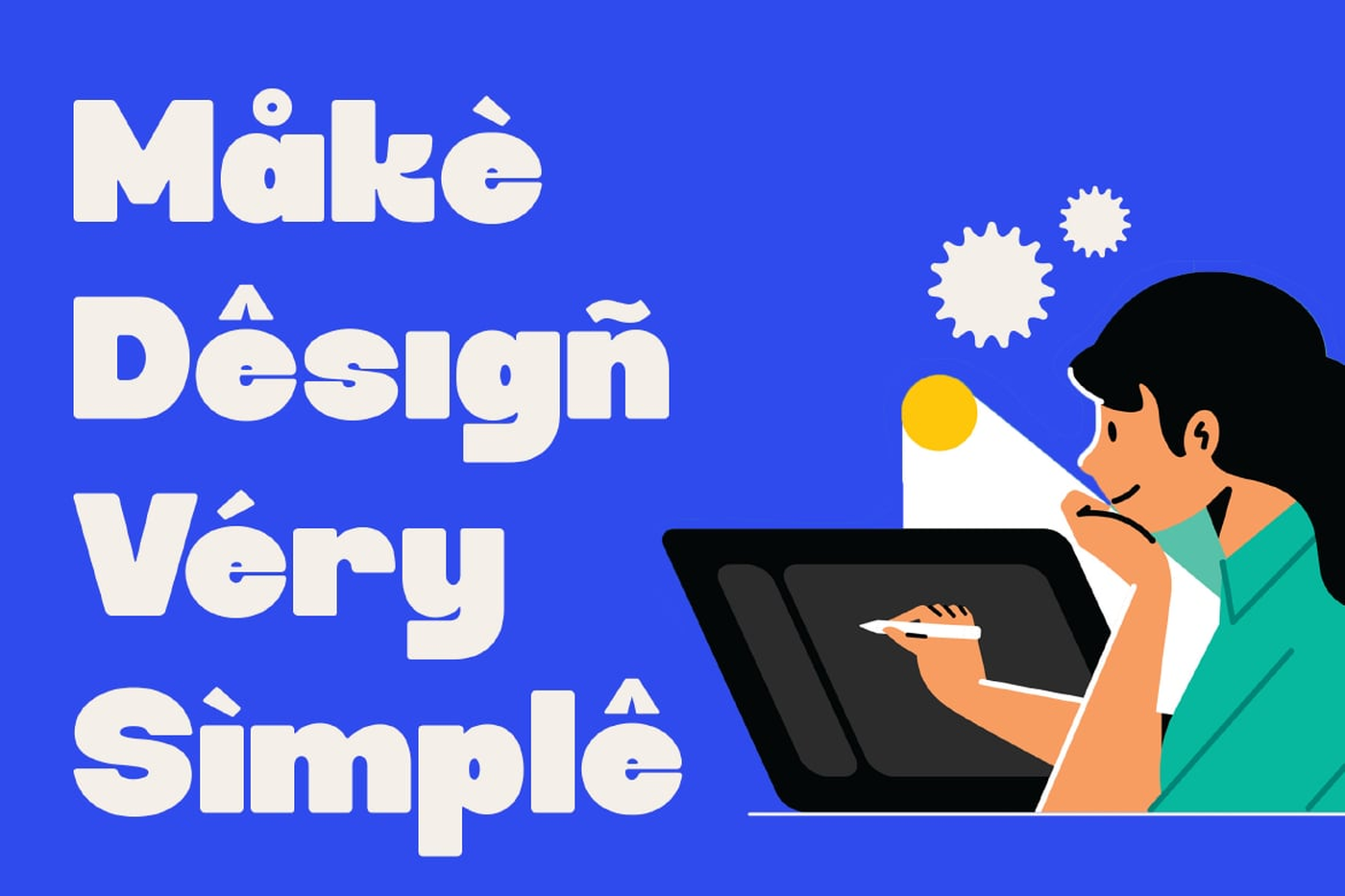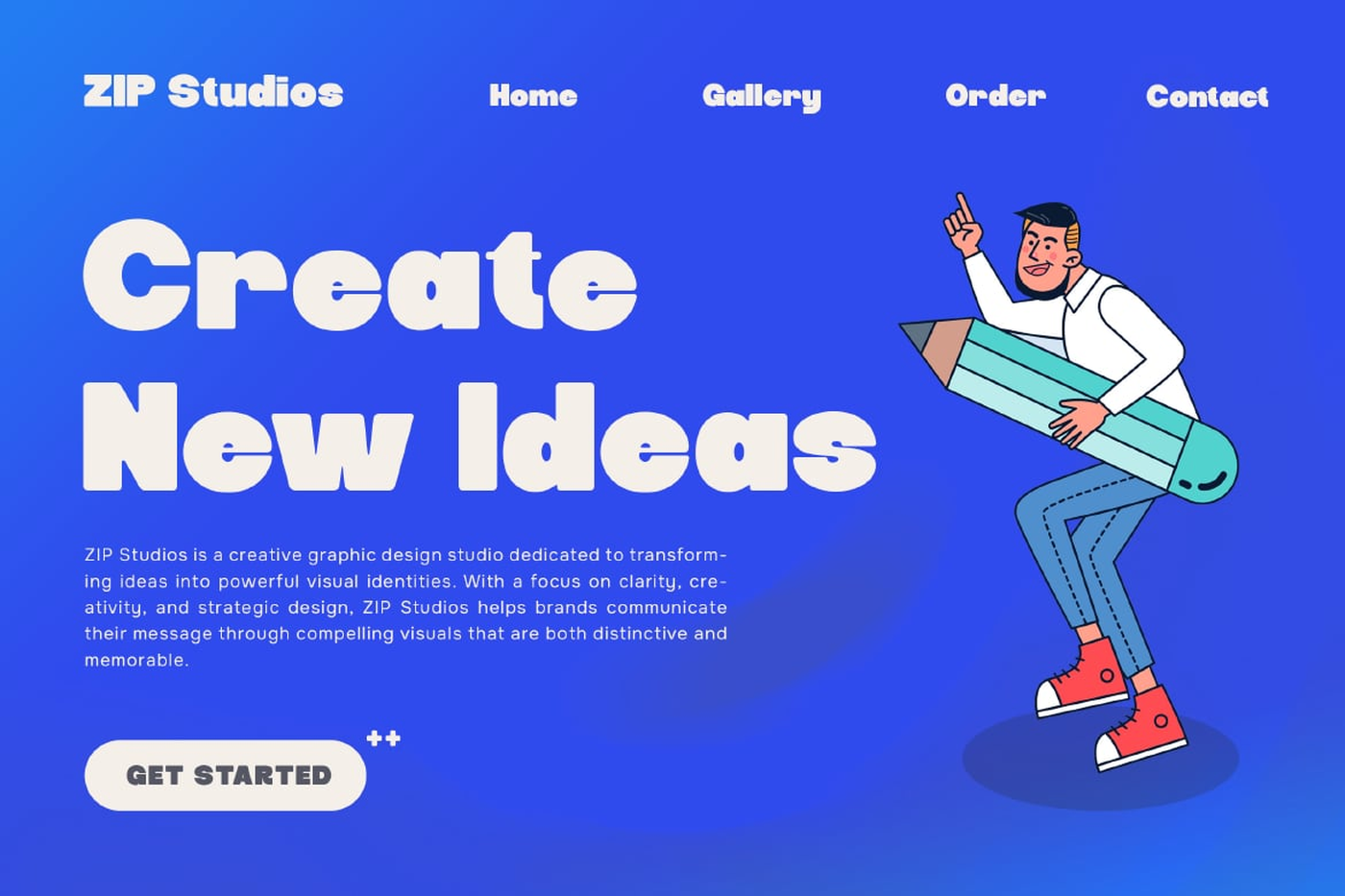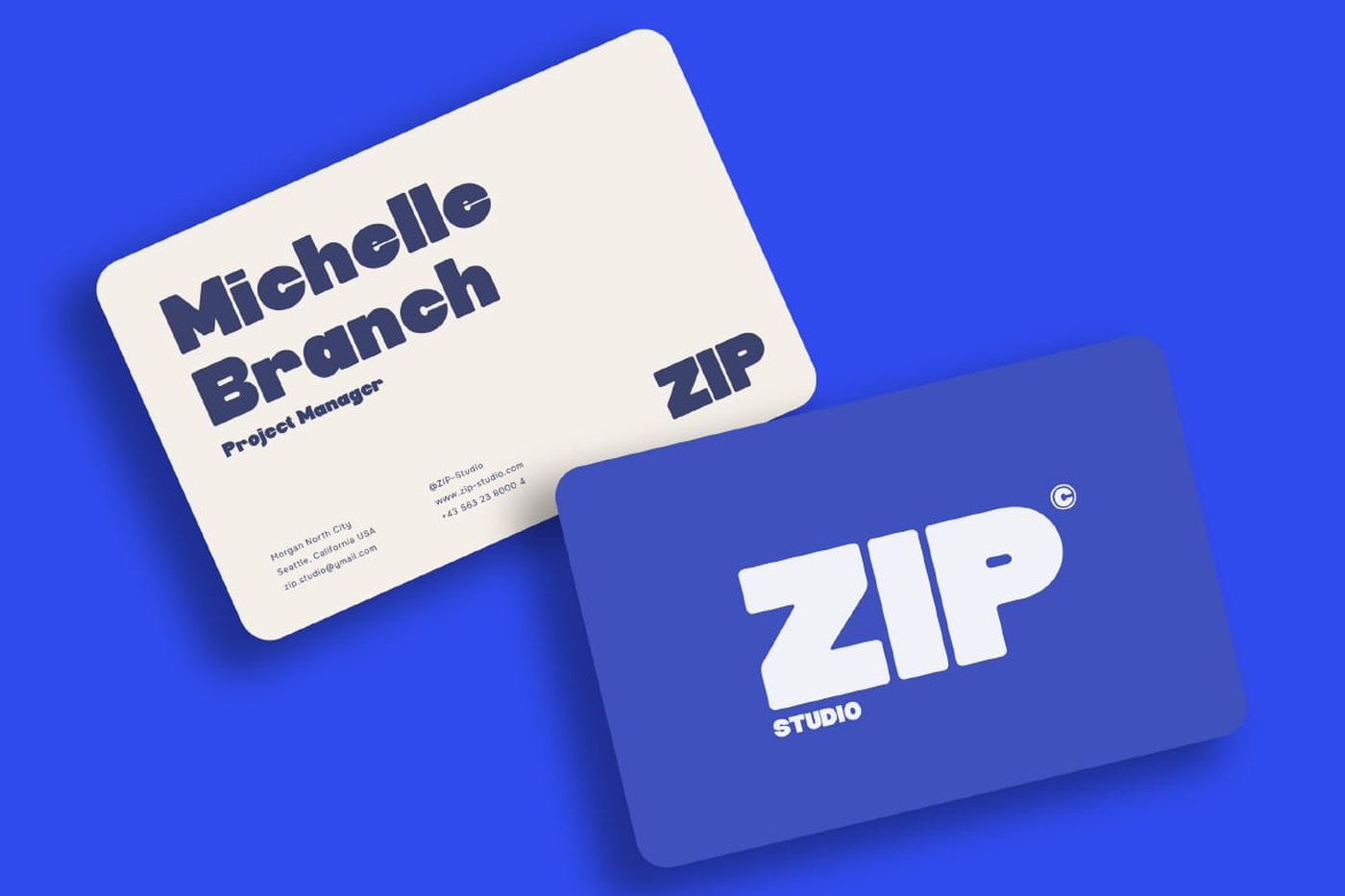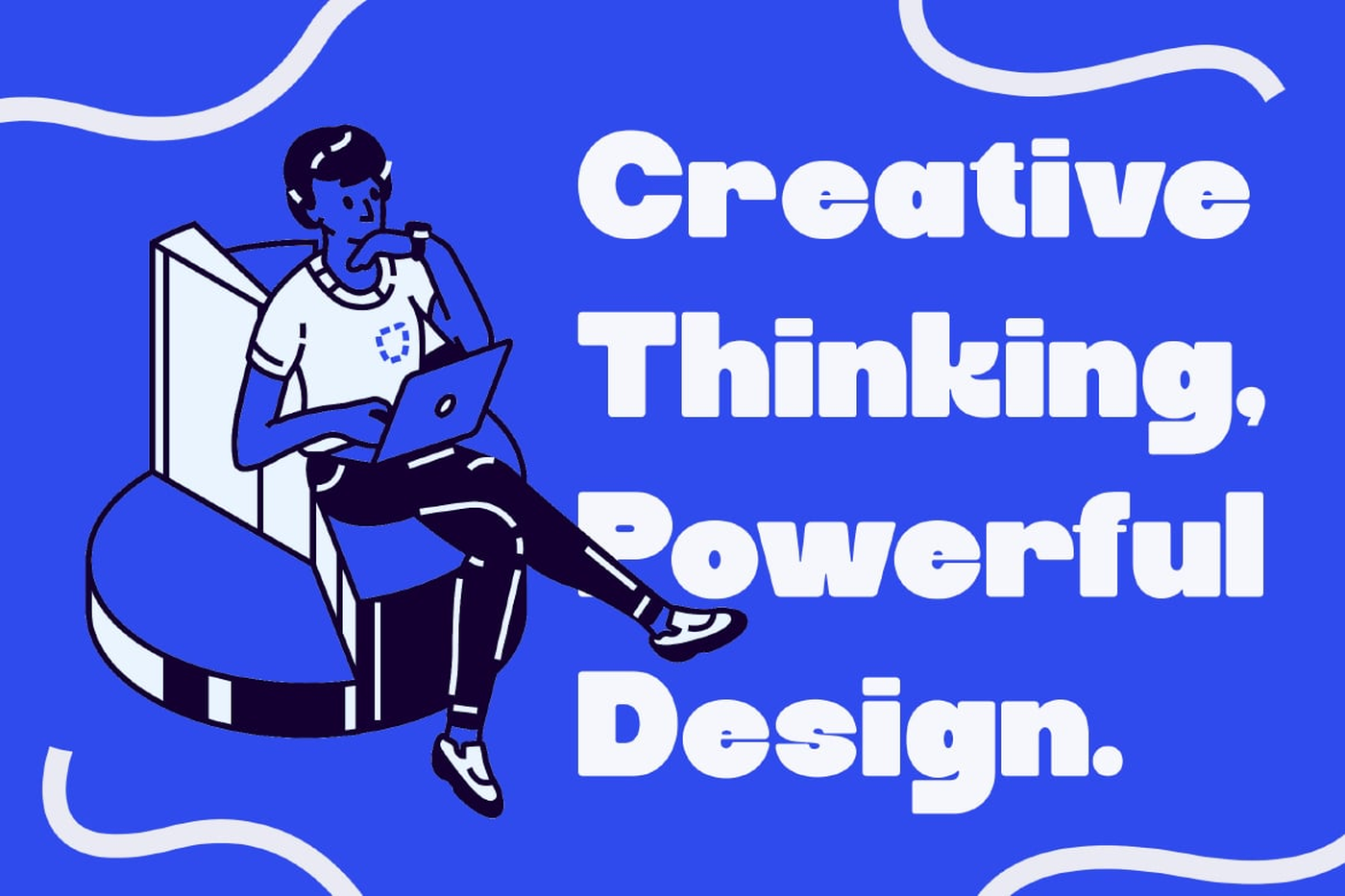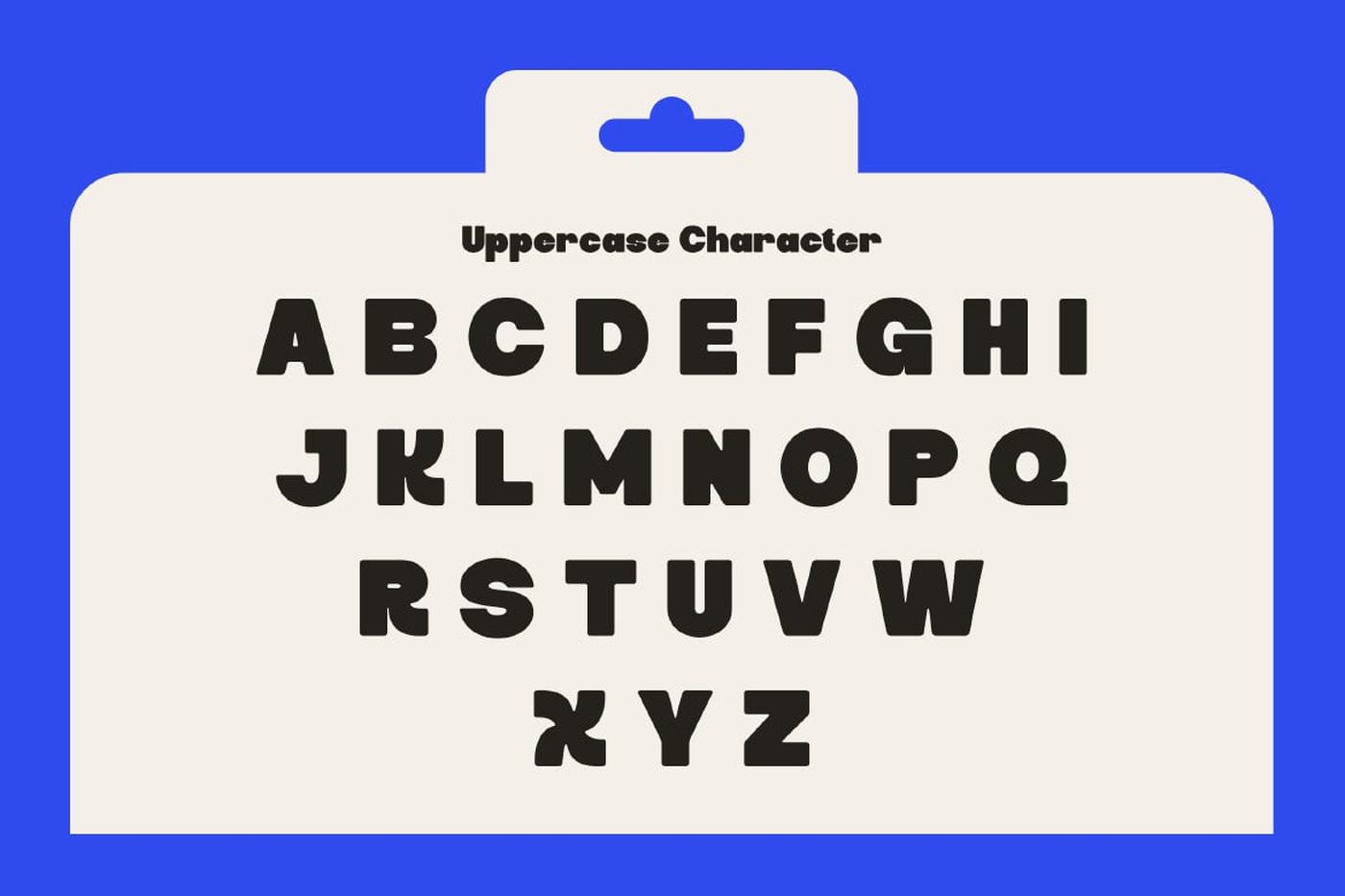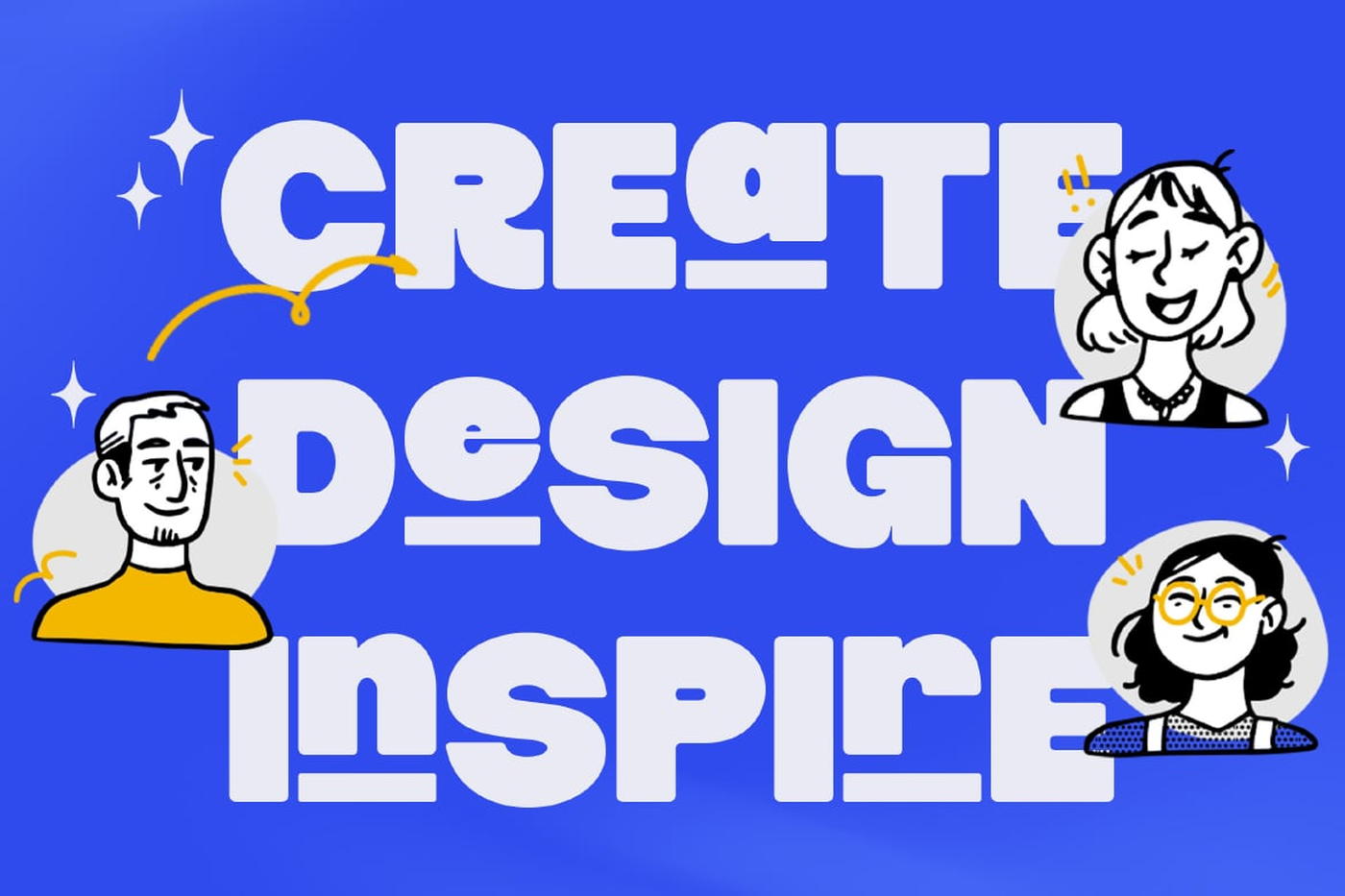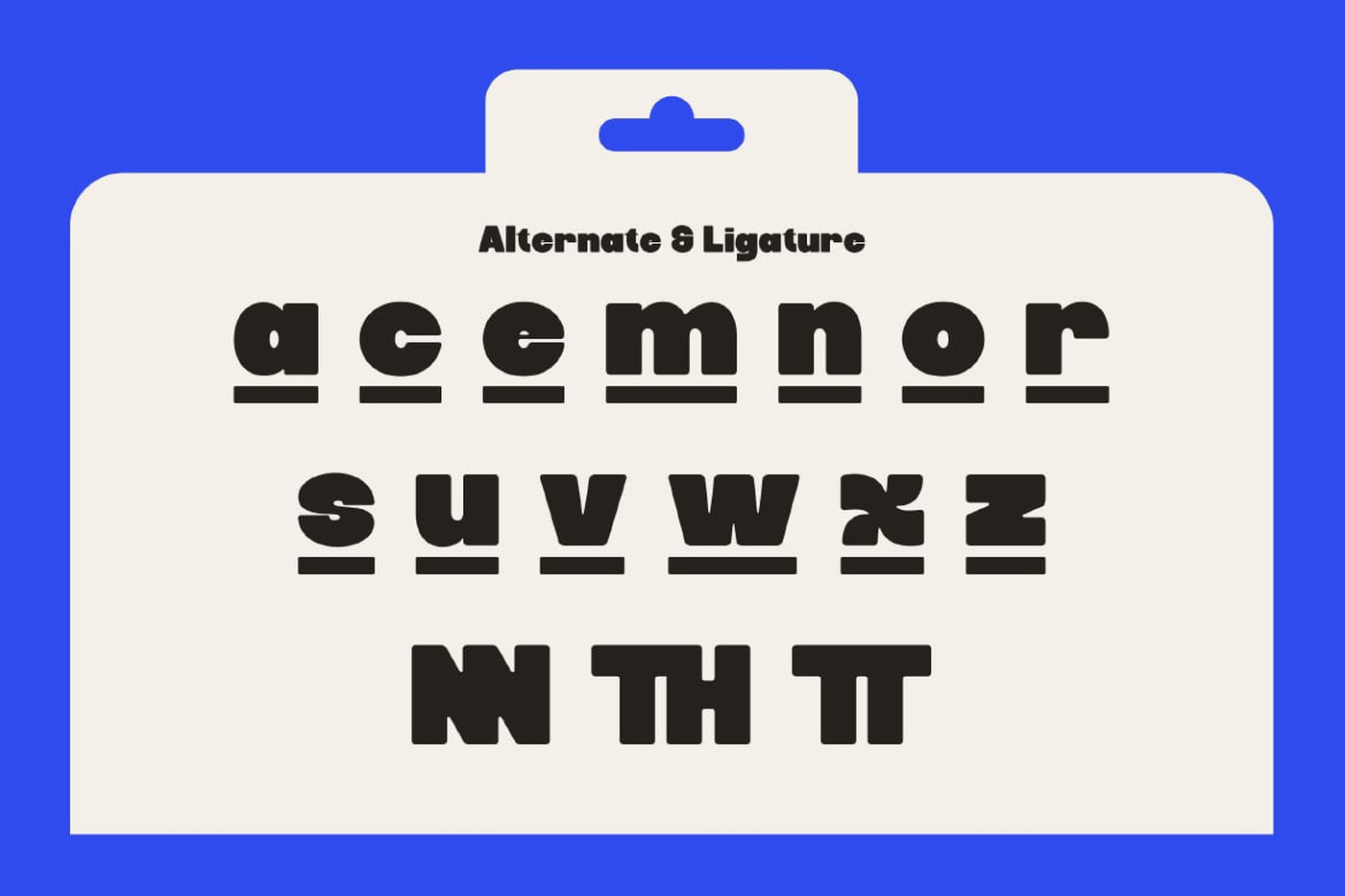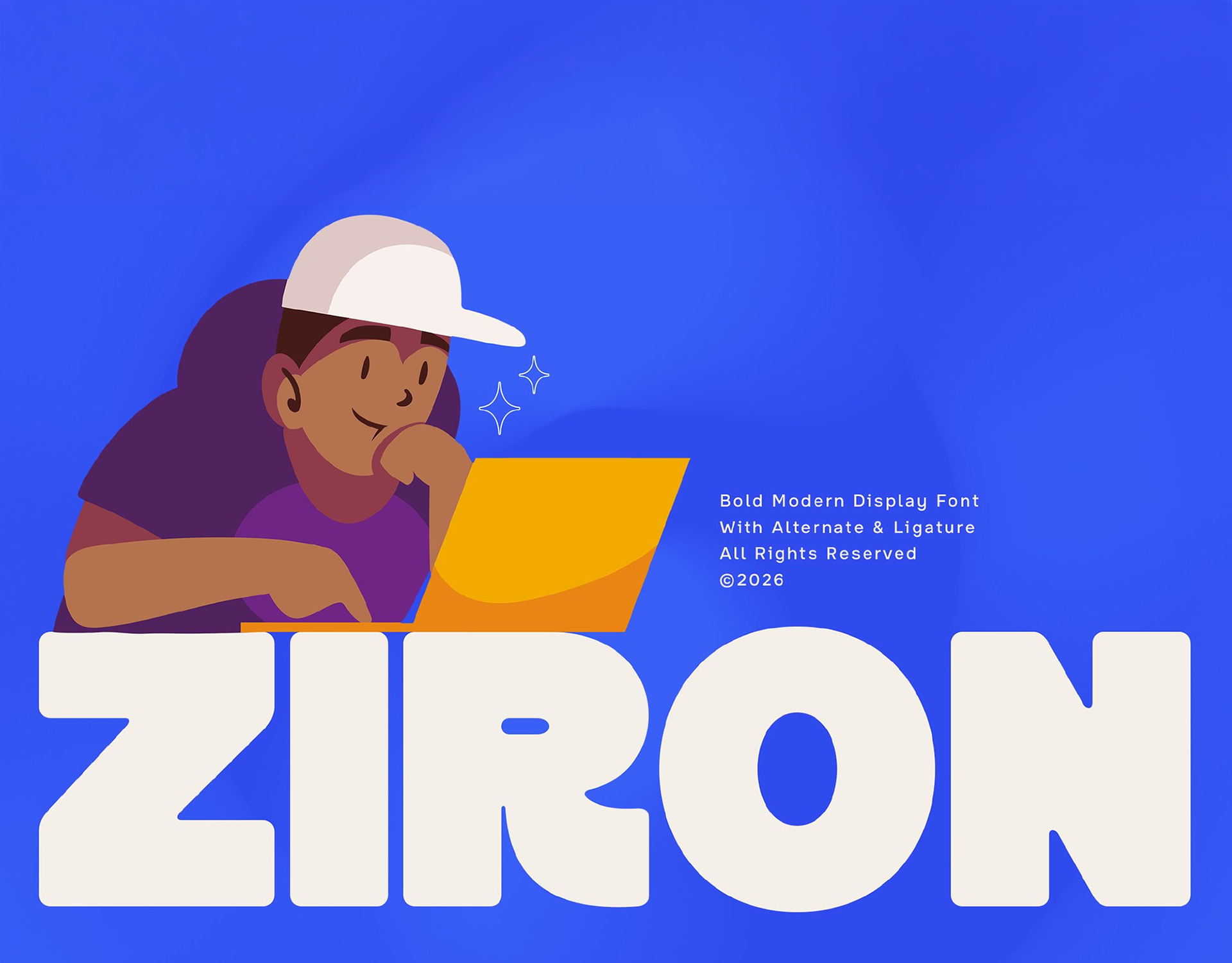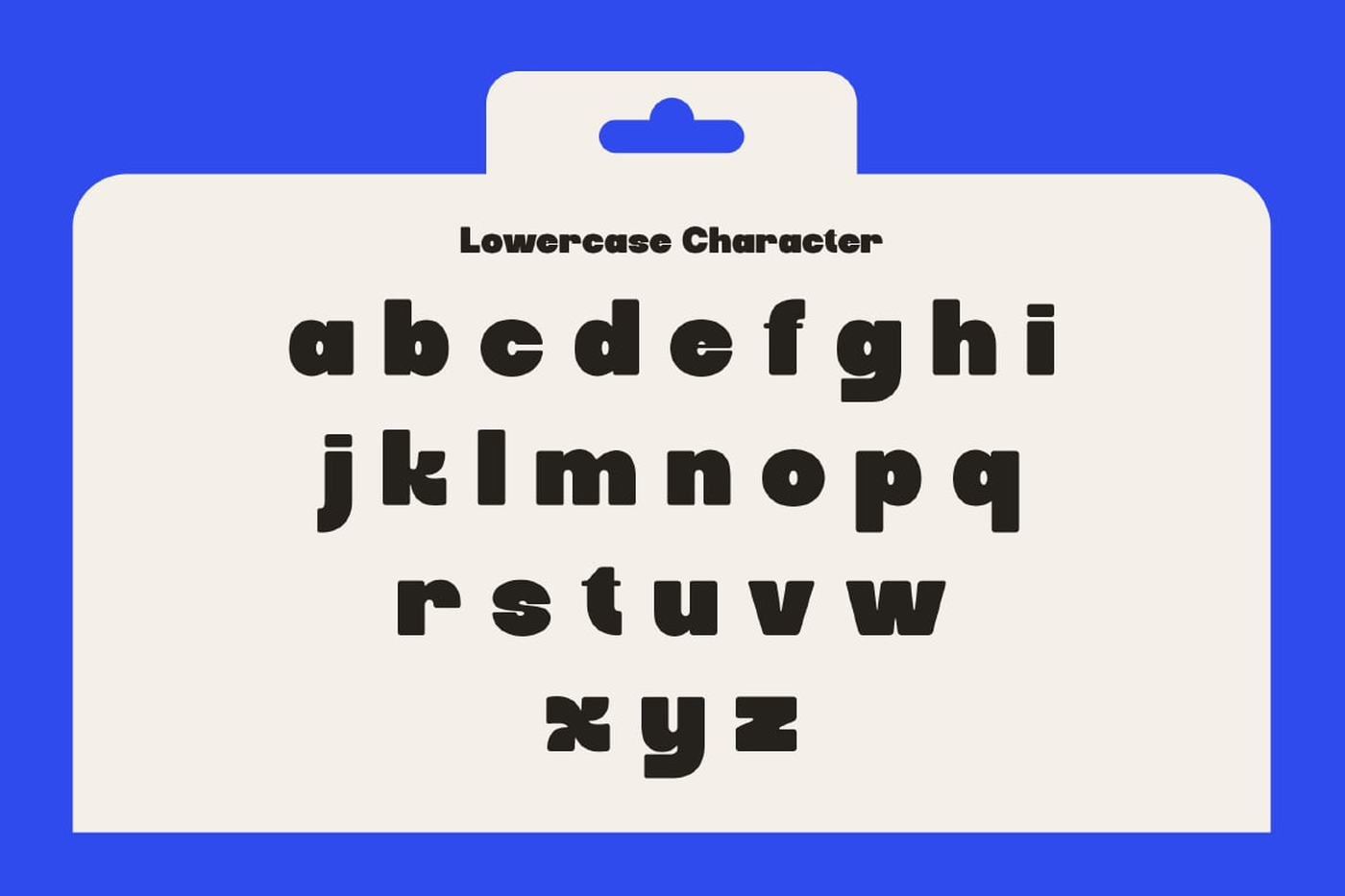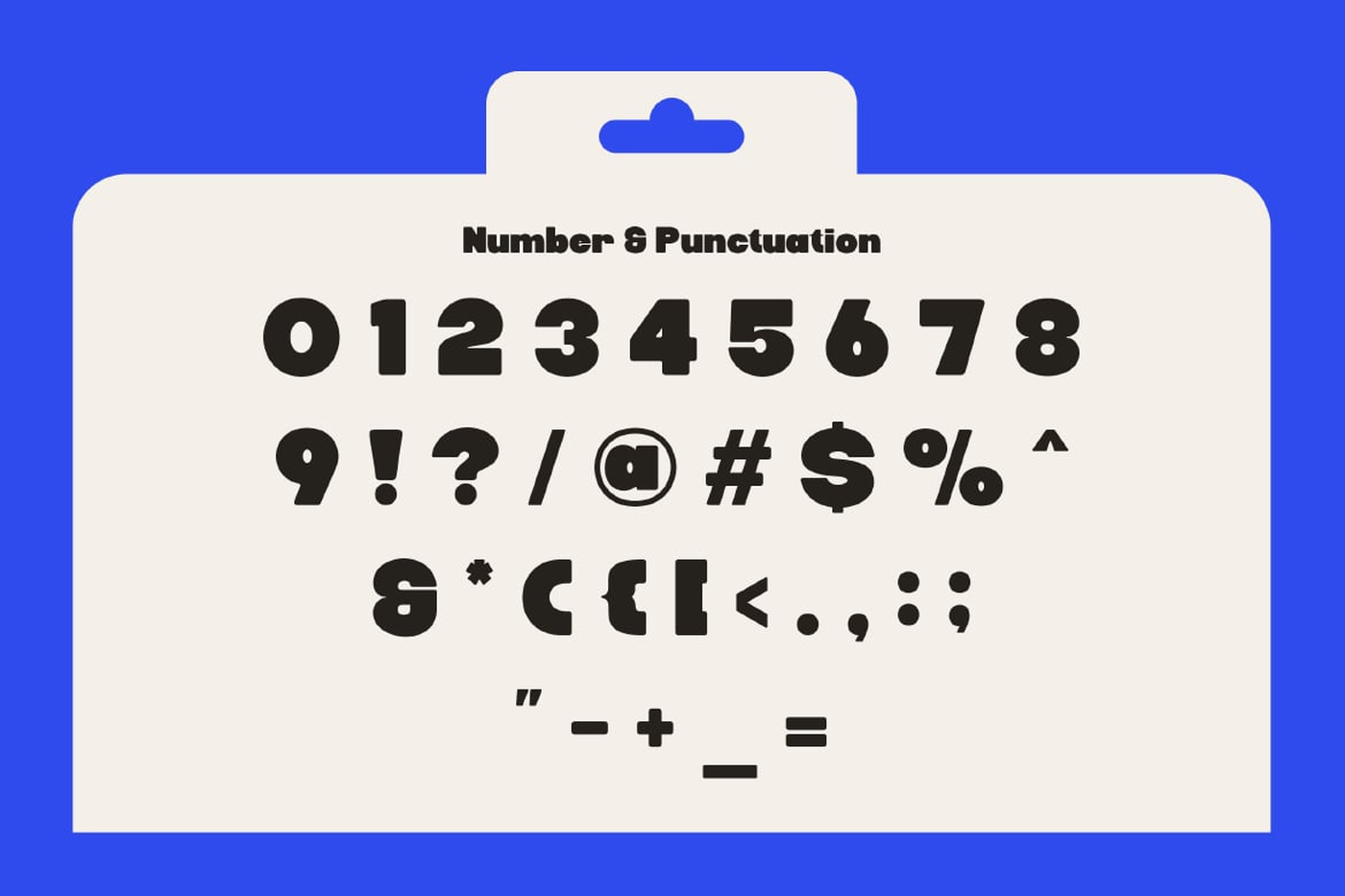
Ziron - Bold Display Sans Font
Ziron is a bold modern sans display font designed to make a strong and confident statement. With its solid structure, clean lines, and contemporary style, Ziron delivers a powerful visual impact while maintaining a fun, playful, and professional appearance. Its bold weight ensures high visibility, making it perfect for headlines and standout typography. At the same time, its modern construction keeps the design balanced and easy to read, allowing it to perform well across various creative applications.
Font: Ziron